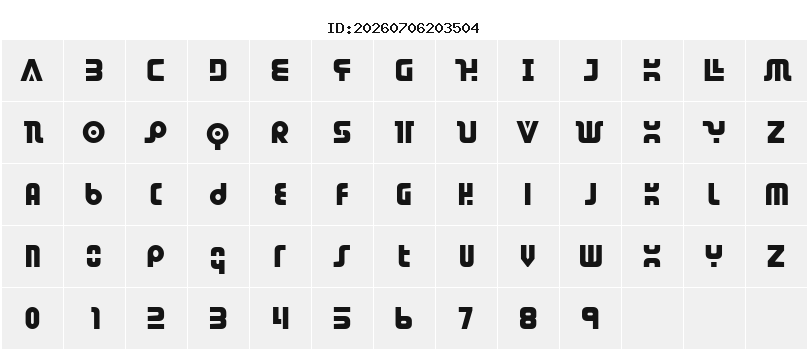
Dendritic Voltage Preview
• Font Name: Dendritic Voltage
• Font ID: Dendritic Voltage
• Full Font Name: Dendritic Voltage
• PostScript Name: DendriticVoltage
• Designer: Ray Larabie
• Manufacturer: Larabie Fonts
About Dendritic Voltage.ttf
Dendritic Voltage.ttf is a modern, elegant sans-serif font designed for ultimate readability and visual harmony. Perfect for branding, headlines, web design, and print materials.